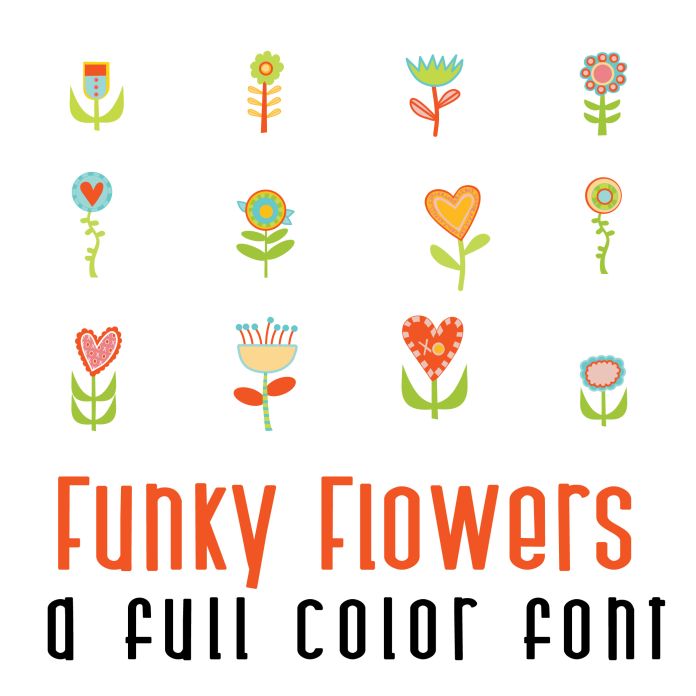
Funky Flowers Full Color Font is a vibrant and playful font design featuring 26 funky flowers in a variety of bright colors. This font is perfect for adding a fun and whimsical touch to spring-themed projects, invitations, and branding materials. Its unique style and detailed design make it stand out and add a touch of personality to any creative project. This font is perfect for cards, crafts, parties, gifts, decor, planner stickers, classrooms, scrapbook pages and more!